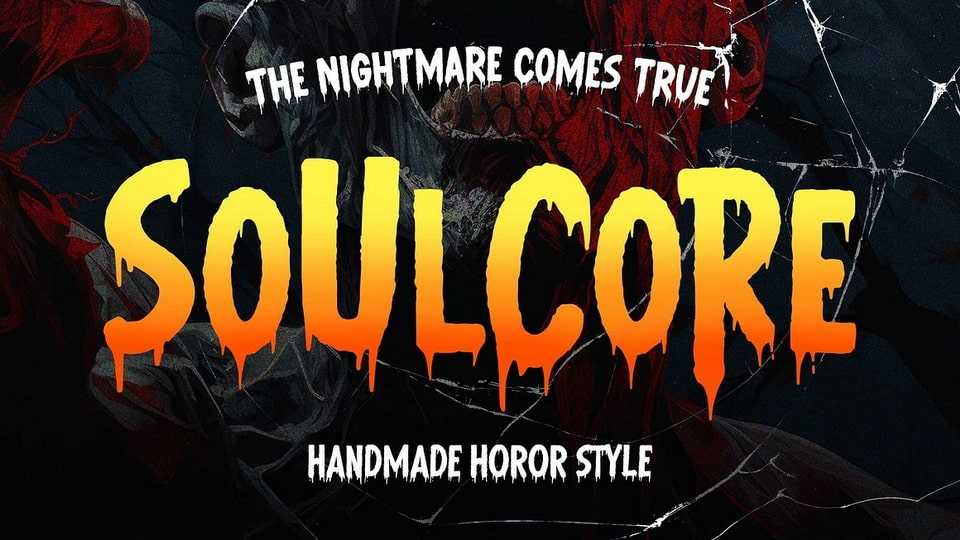
Download Soulcore font, a spine-chilling display font forged in the shadows of your darkest imagination with jagged strokes, distorted forms, and raw intensity.